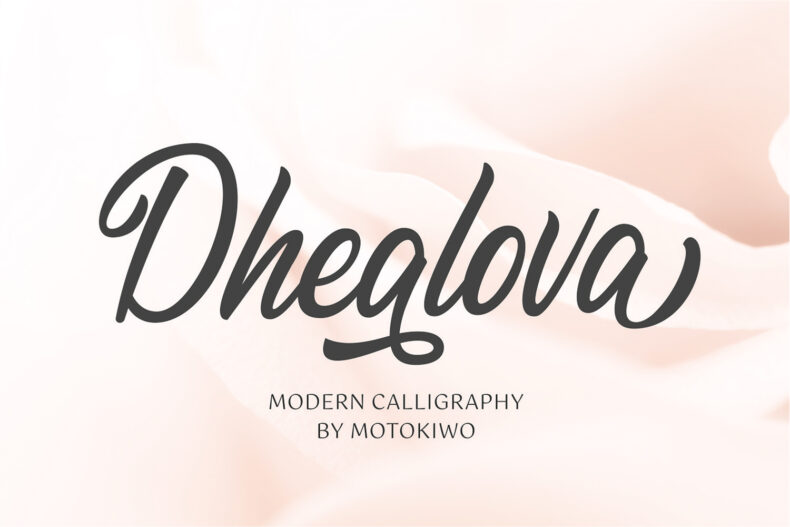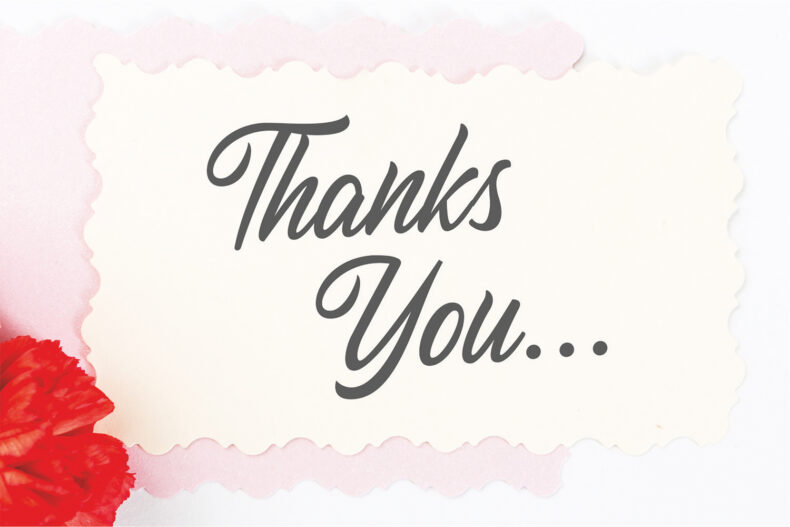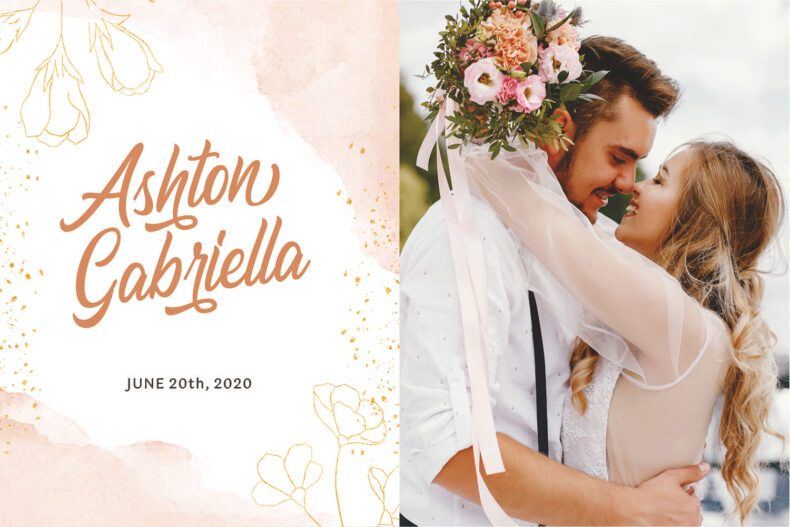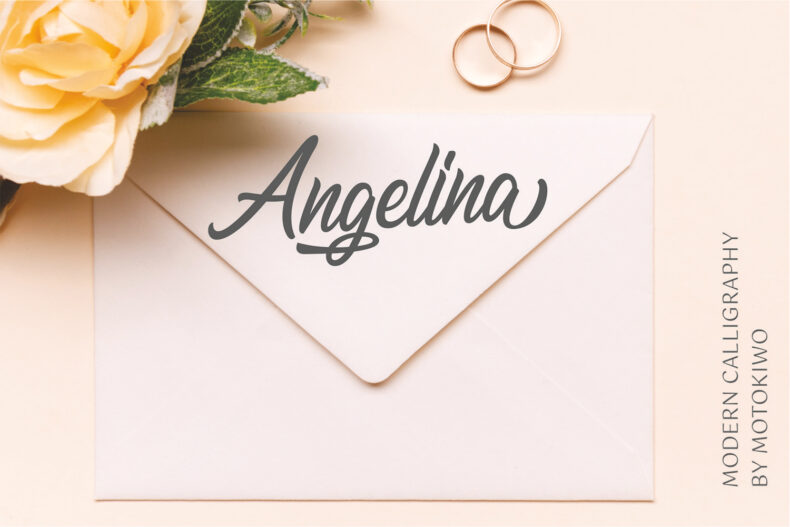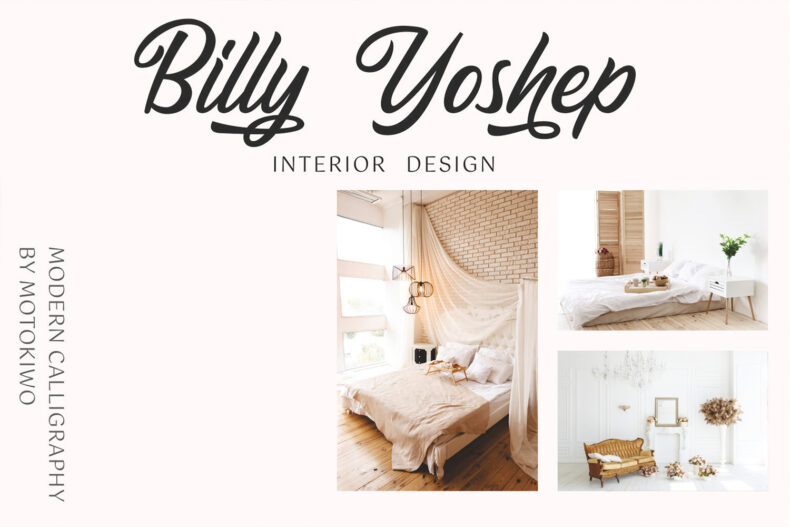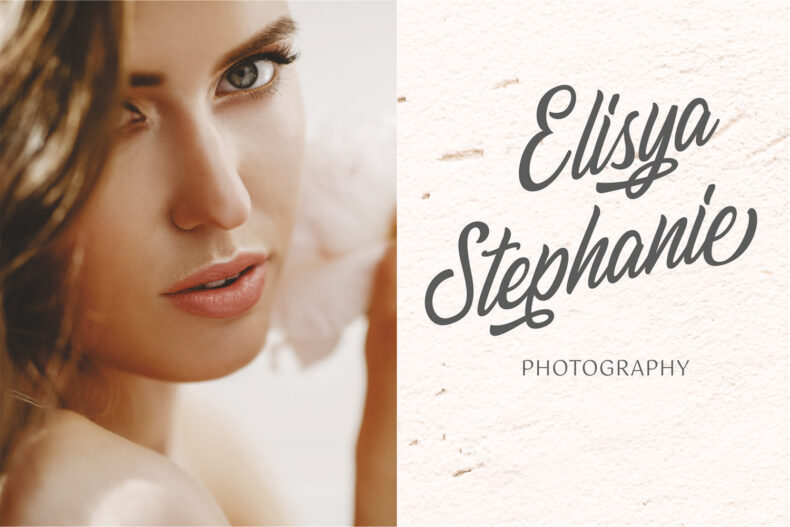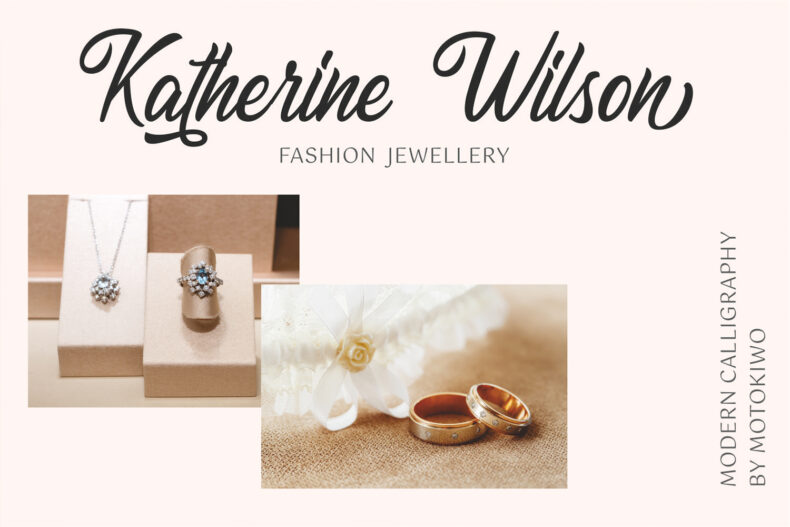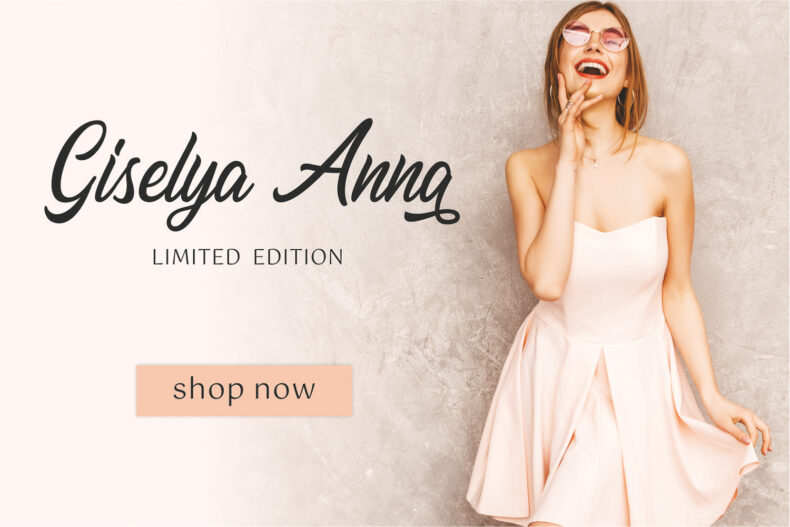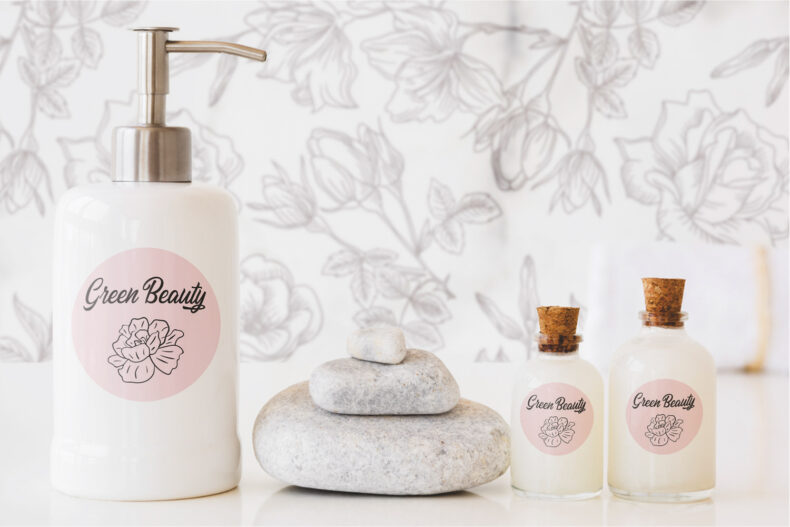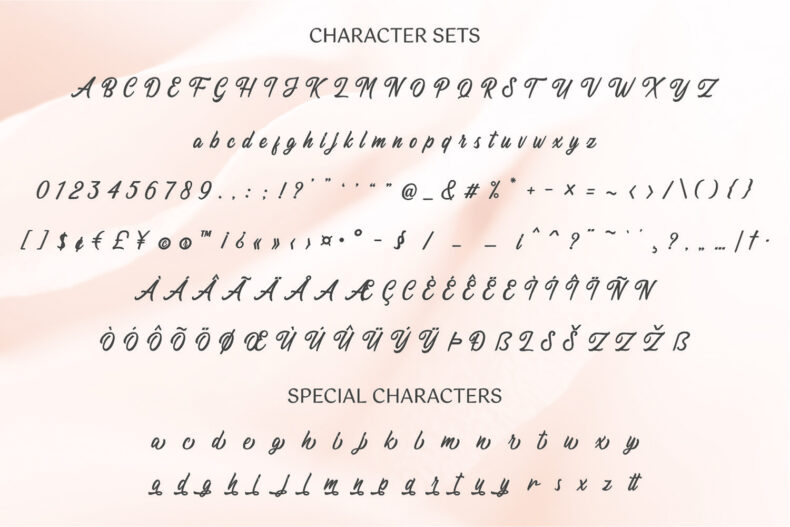
Dhealova, Romantic Script Font
Dhealova is a sweet and romantic font. It’s pretty script font that very recommended for wedding, fashion, poster, and many more. This font contains uppercase, lowercase, number, punctuation, ligature, contextual alternates, stylististic alternate, and multilingual support.
Feature | Access All Alternates, Ligature, Contextual Alternate, Stylistic Alternate |